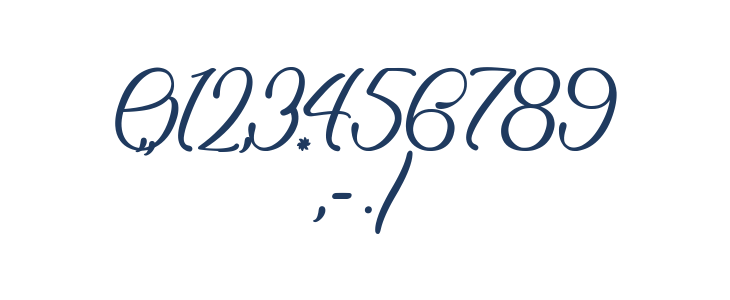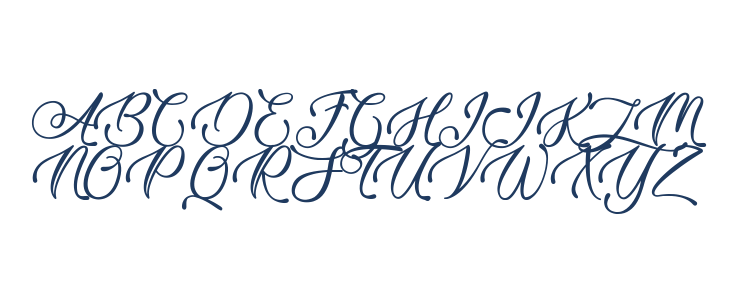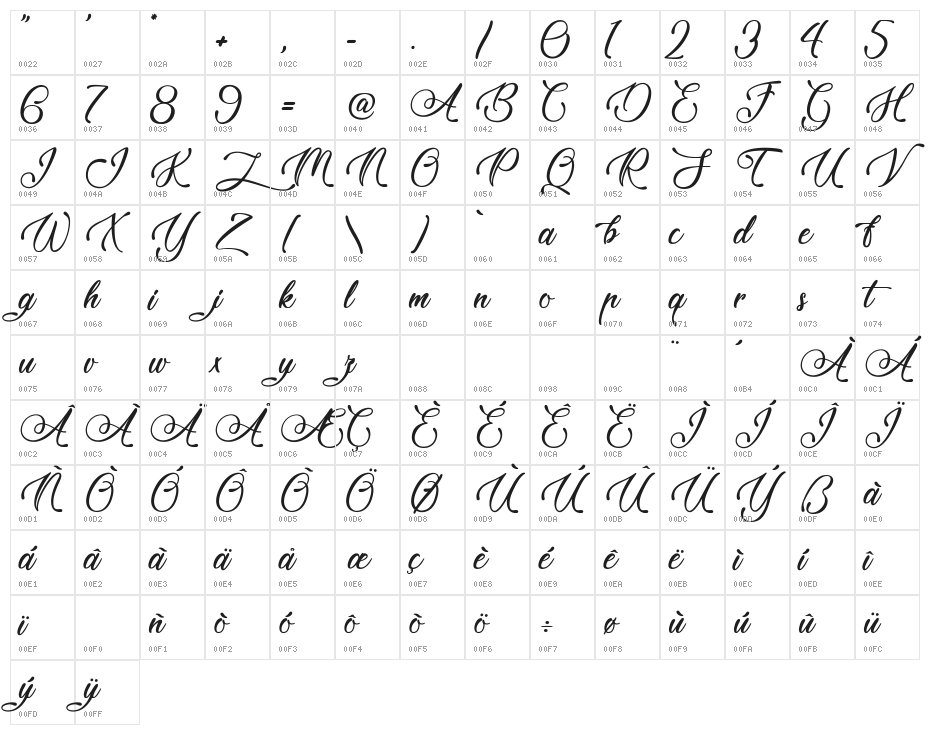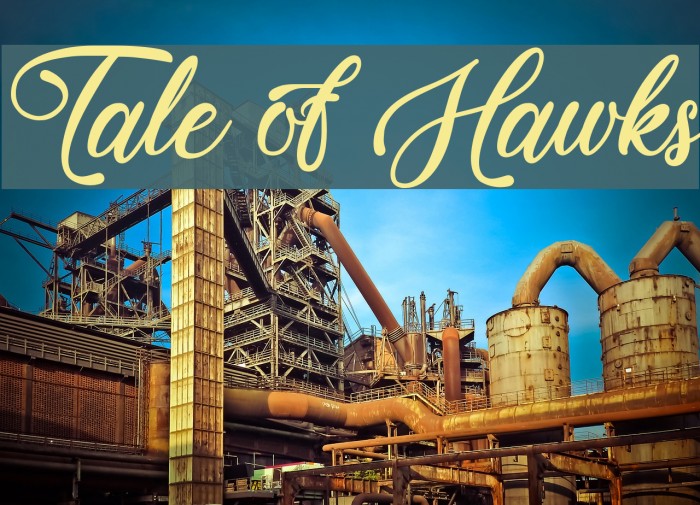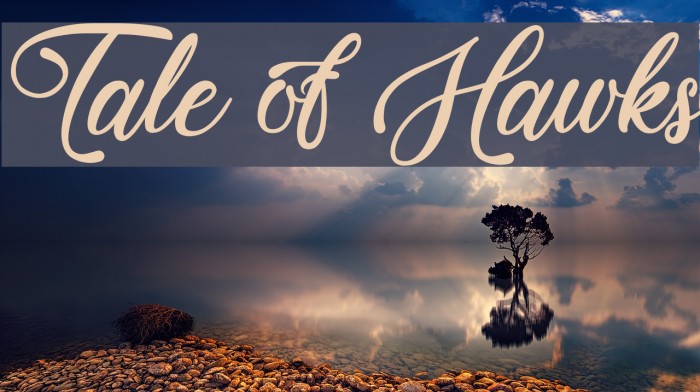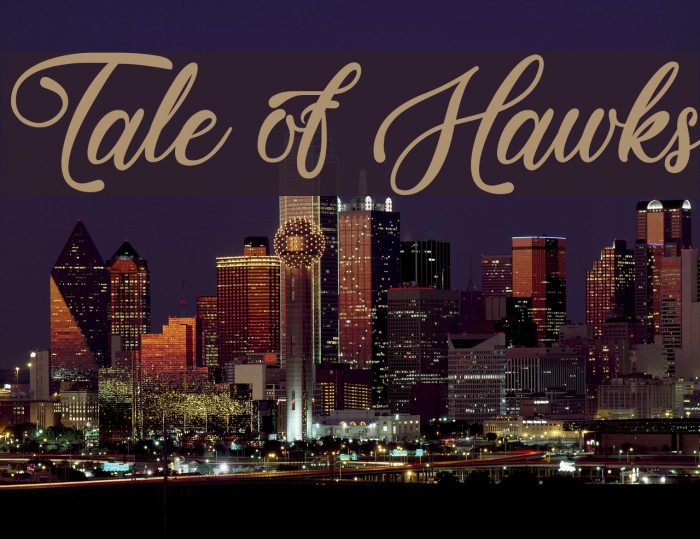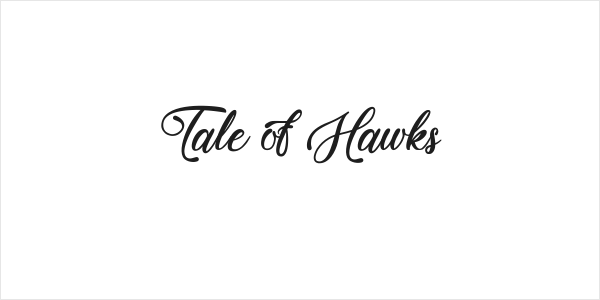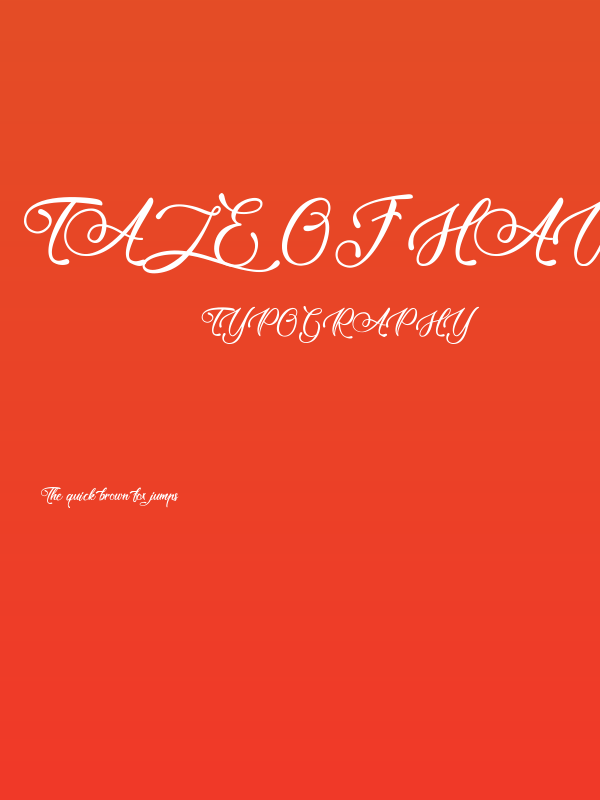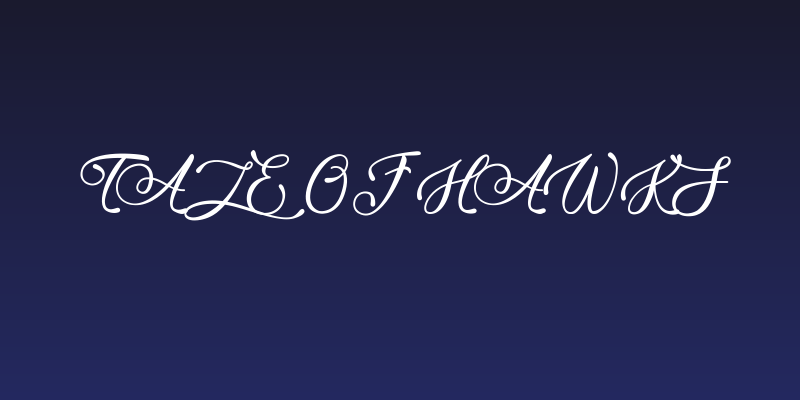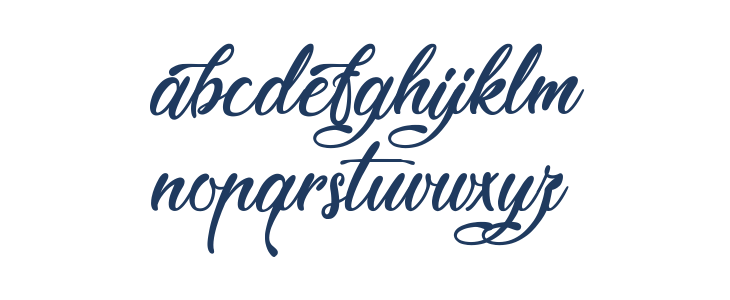
Tale of Hawks Font
Tale of Hawks Description
This elegant script font features a flowing, cursive style with intricate loops and swashes, creating a sense of sophistication and grace. The uppercase letters are particularly ornate, with each character exhibiting unique flourishes that enhance its decorative appeal. The lowercase letters maintain a consistent style, with smooth, connected strokes that ensure readability while retaining the font's artistic flair. The numerals and special characters are designed to complement the overall aesthetic, featuring similar curves and embellishments. This font is ideal for projects that require a touch of elegance and refinement, such as wedding invitations, luxury branding, or high-end product packaging.
Overall StyleElegant, Decorative
Use CaseLogos, Invitations, Decorative text
Proposed ProjectsWedding invitations, luxury branding, high-end product packaging, elegant stationery.